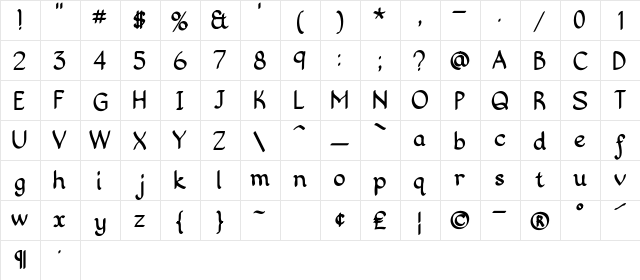
songenia Regular
Design Context for songenia Typeface
songenia is a composed and adaptable typeface that performs quietly and consistently across a wide range of design contexts.